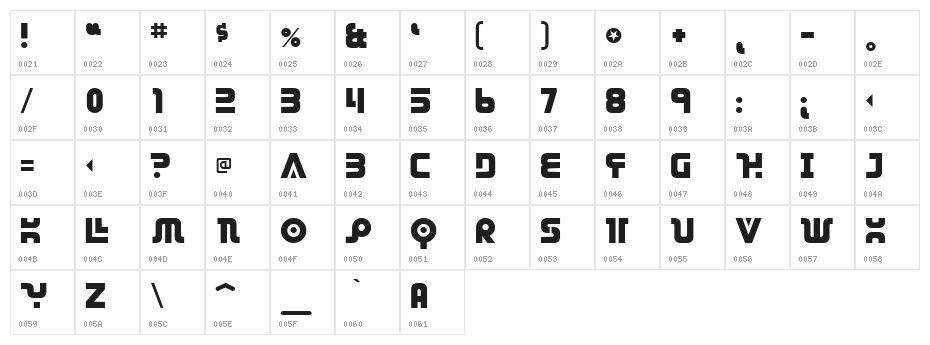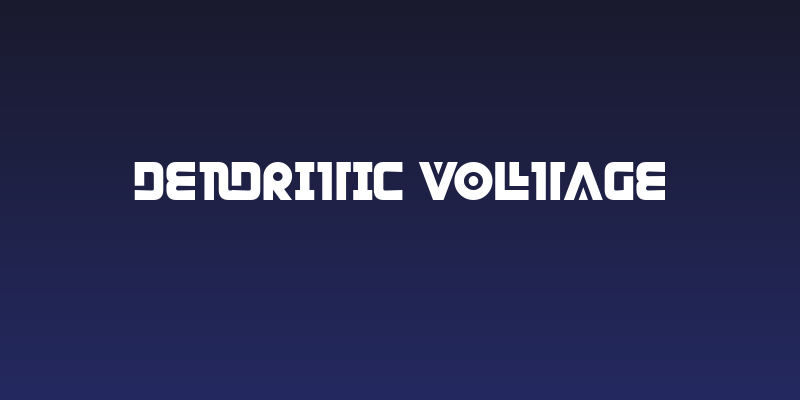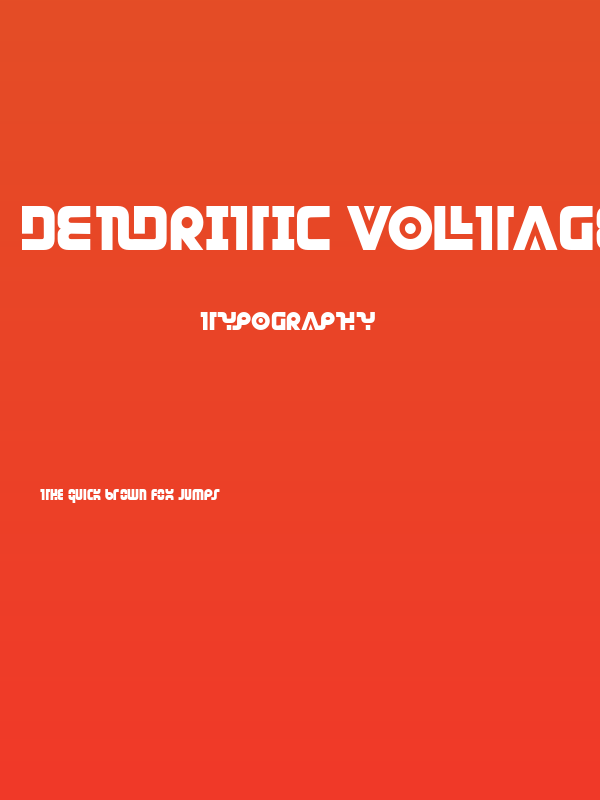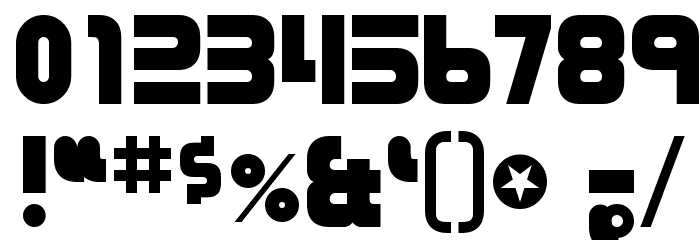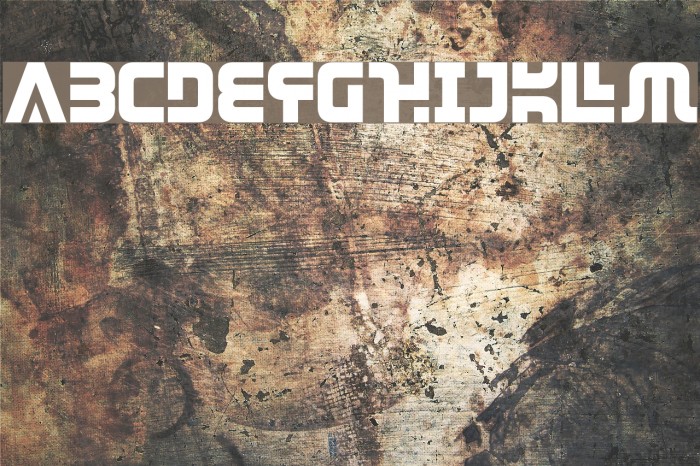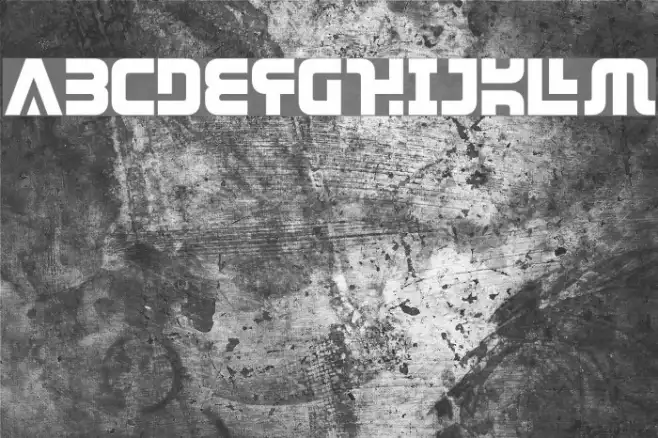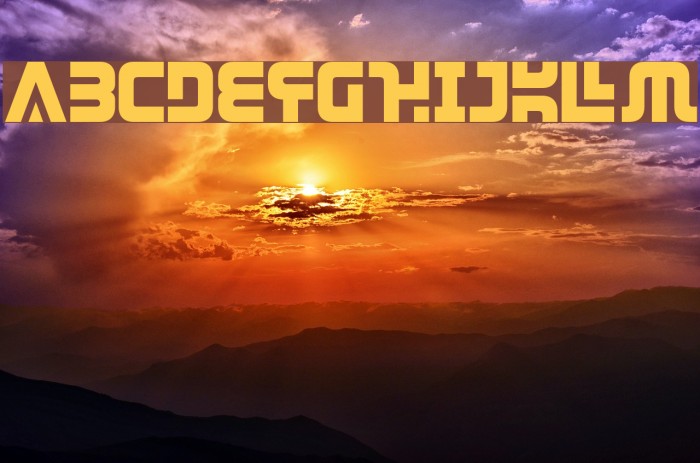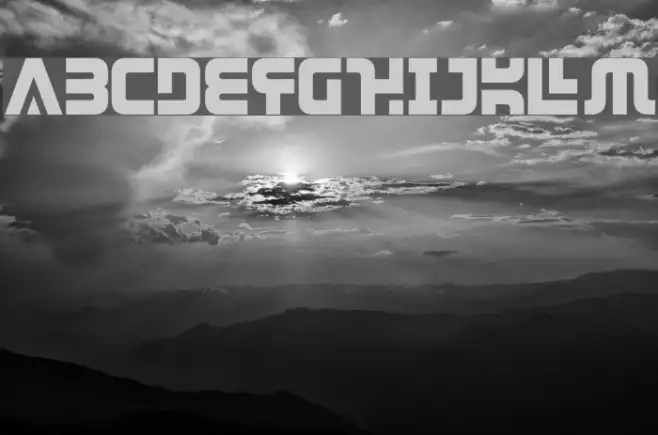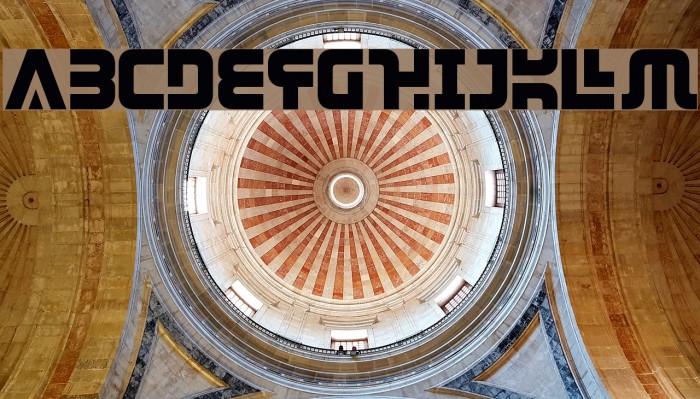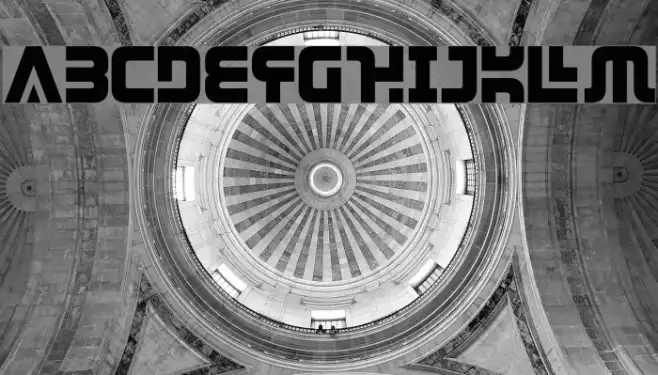
Dendritic Voltage Font
Dendritic Voltage Description
This font features a bold and futuristic design with geometric shapes and a strong presence. The characters are constructed with thick strokes and rounded edges, giving them a modern and robust appearance. The uppercase and lowercase letters share a consistent style, with unique cutouts and angles that add a distinctive flair. Numbers and special characters maintain the same boldness, ensuring uniformity across all elements. The font's design is eye-catching, making it ideal for projects that require a strong visual impact.
| Proposed Projects | Ideal for technology branding, sci-fi movie posters, video game titles, and modern advertising campaigns. |